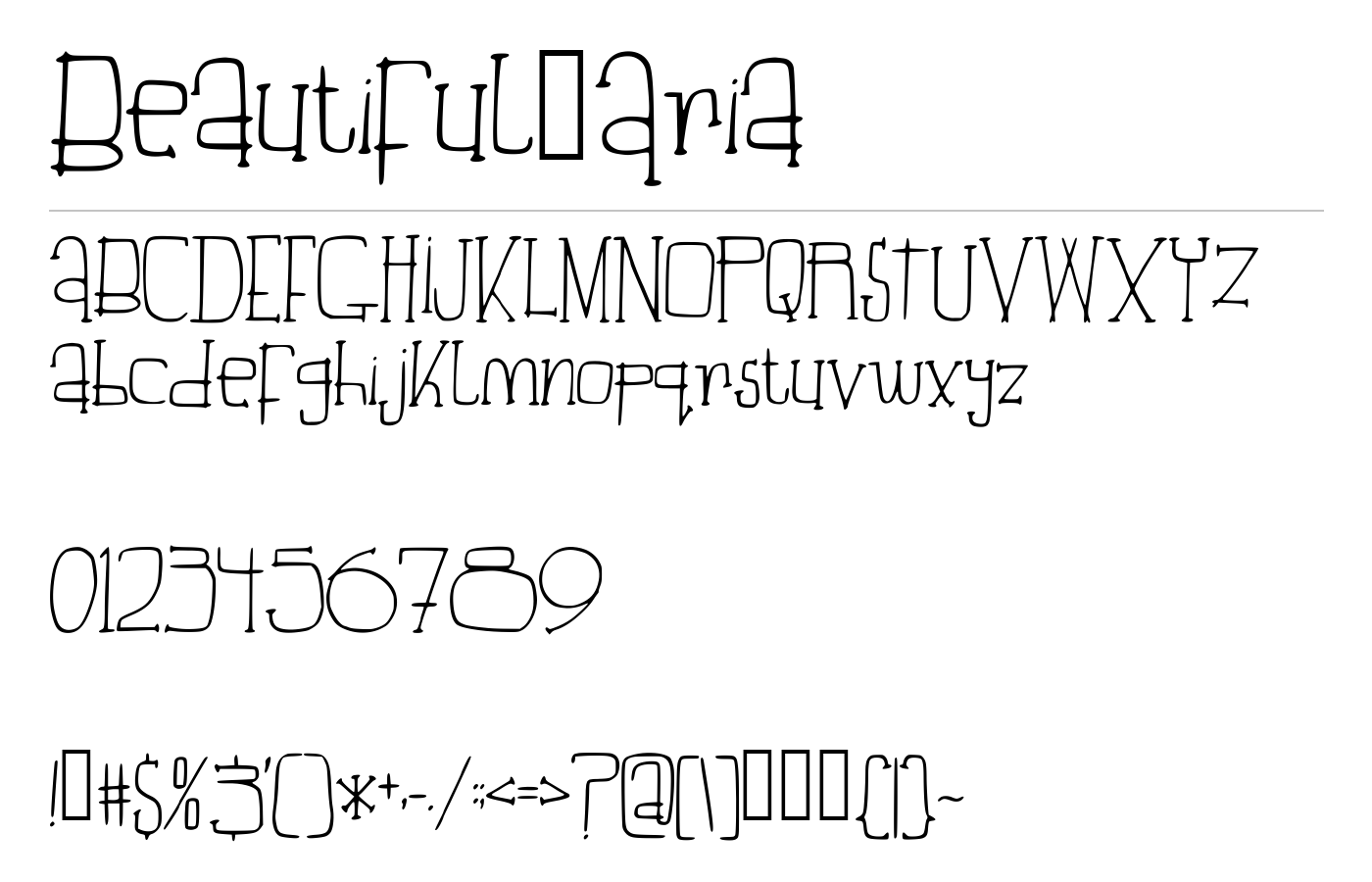
Beautiful_Aria is a whimsical serif font with slender, irregular letterforms that give it a playful and slightly quirky character. Its thin strokes and subtle curves, combined with uniquely shaped serifs and delicate details, make it ideal for creative and artistic projects that seek a hand-crafted or vintage-inspired feel. This font works best for headlines, logos, and decorative uses where personality and charm are key.
Beautiful_Aria Font
About Beautiful_Aria Font